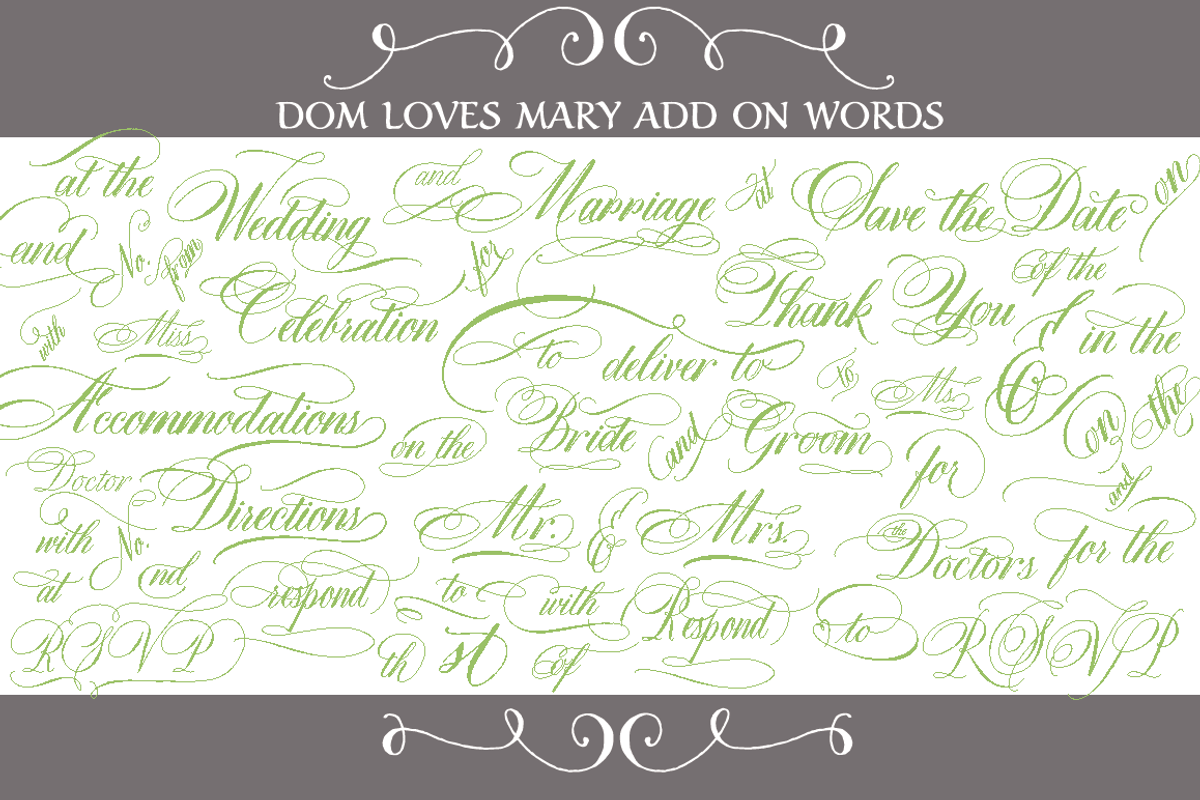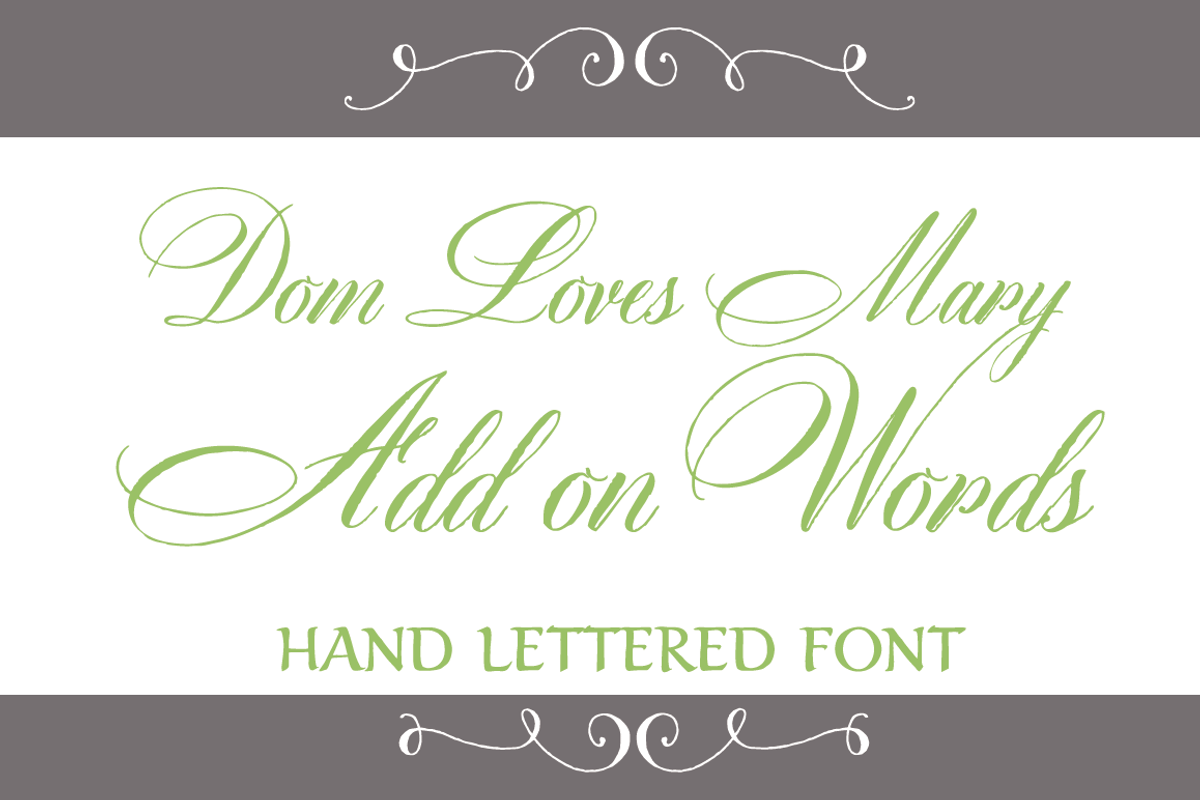
Created with DIY Brides and Invitation designers in mind, Dom Loves Mary Add On words include 66 of the most commonly used words for wedding projects. Easily use them like Clip Art!
Check out the graphic above to view them all.
Use them on Save the Dates and Invitations, Programs, Wedding Signs, Thank You Cards and more!
List of Add on words:
Save the Date (two options) Accommodations Directions RSVP Respond respond Wedding Marriage Celebration Bride Groom Thank You deliver to No. and ( 6 options), for (3 options), of (3 options),on (2 options) ,to (4 options) ,with (3 options), at (2 options), from (straight and angled options) at the, for the, in the, of the, on the
Ordinals: st, nd, rd, th (ex: 21 st of May)
Titles for envelopes and place cards : Mr. and Mrs., Ms., Mr., Miss, Doctor, the Doctors
You can create wedding signs of all kinds on your computer and have them enlarged at a copy shop. Endless possibilities!
Dom Loves Mary is named in memory of my in-laws, Dominic andMary Sementelli, my in-laws. Inspired by their 1952 wedding, I sought to create a classic, elegant script font that would serve their memory well. Dom and Mary were opposites who were truly “made for each other”. A snazzy dresser, Mary was feisty, loved to dance, sing, and be the life of the party. Dom was cool, calm and collected and was happy to shine the spotlight on the love of his life. They balanced each other out in a really great way. I decided to create a hand-lettered font with them in mind represented by two totally different lettering styles, SCRIPT and TEXT, that were, like Dom and Mary, “made for each other”.